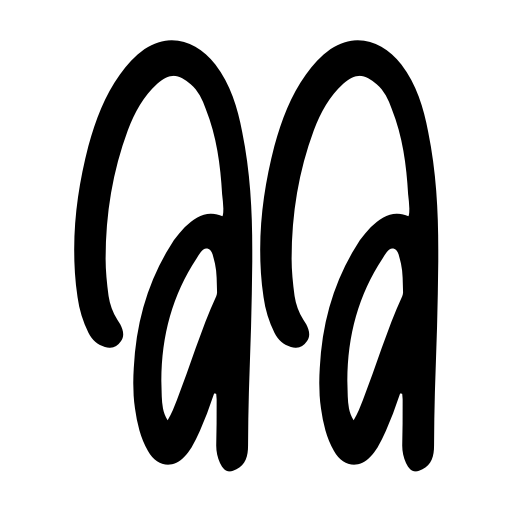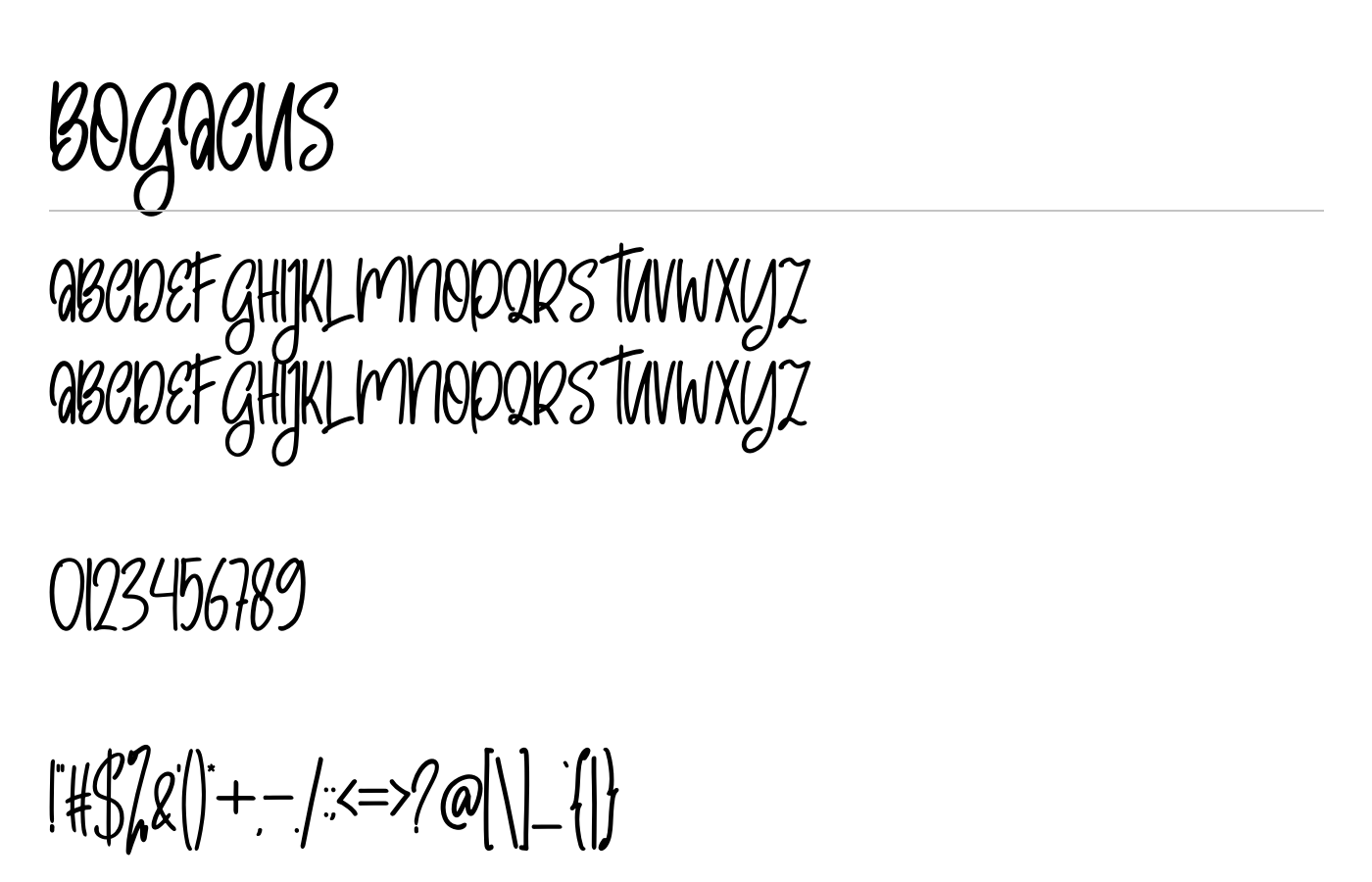
Bogacus is a quirky, handwritten sans serif font with a tall, narrow structure and playful, irregular strokes that give it a casual and expressive personality. Its thin, uneven lines and whimsical letterforms make it ideal for creative projects that want a fun, personal touch, such as invitations, logos, and informal branding. This font works best in headlines or decorative text where its unique style can stand out and add character.
Bogacus Font
About Bogacus Font